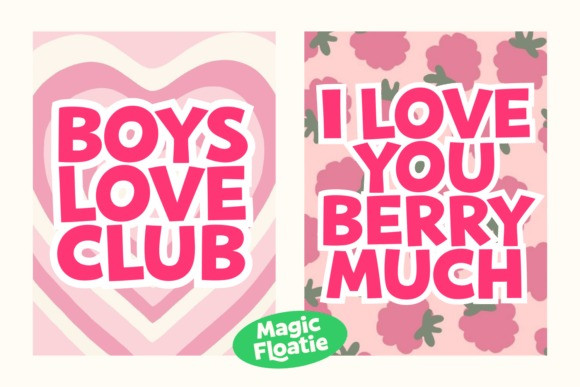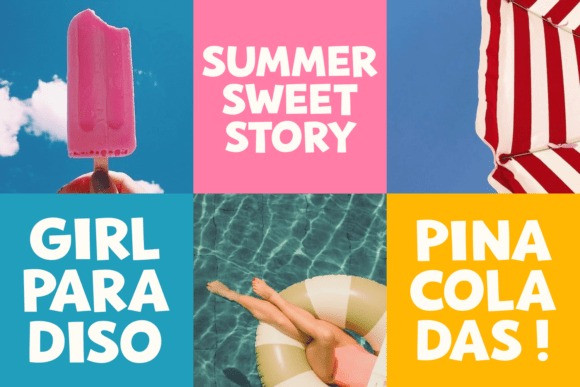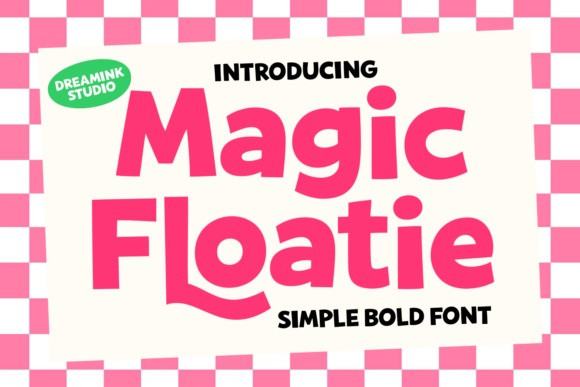
Magic Floatie Font
Magic Floatie Font is a fun, bold, and simple display font that brings instant charm to your designs. With its chunky shapes and playful vibe, this font is perfect for eye-catching titles, posters, packaging, social media graphics, and kids’ projects. Its clean yet quirky style makes it versatile for both digital and print designs, while the bold lettering guarantees strong visibility and a cheerful personality.